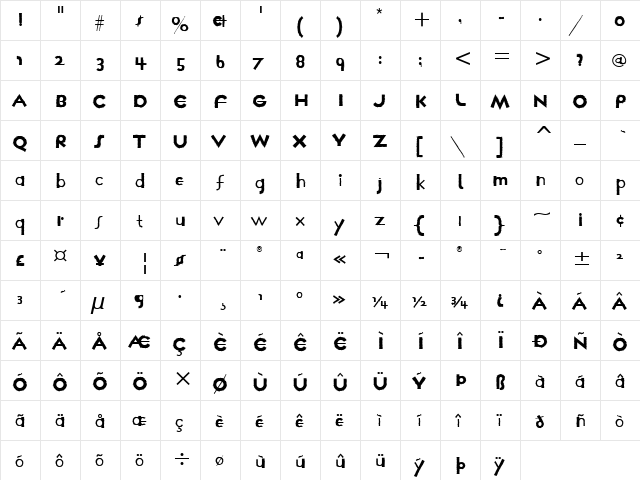
FarmhausNotSoITC Normal
Design Context for FarmhausNotSoITC Typeface
FarmhausNotSoITC is a composed and adaptable typeface that performs quietly and consistently across a wide range of design contexts.